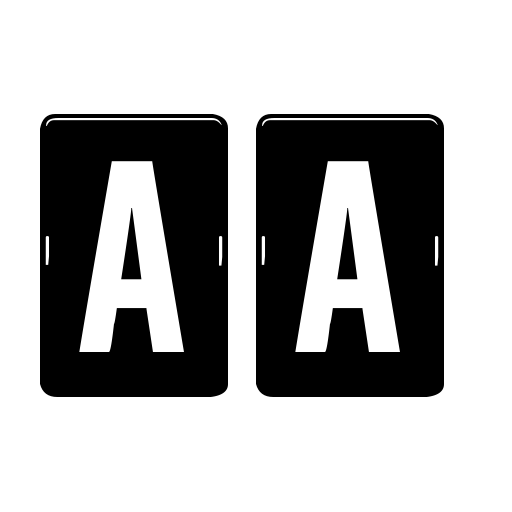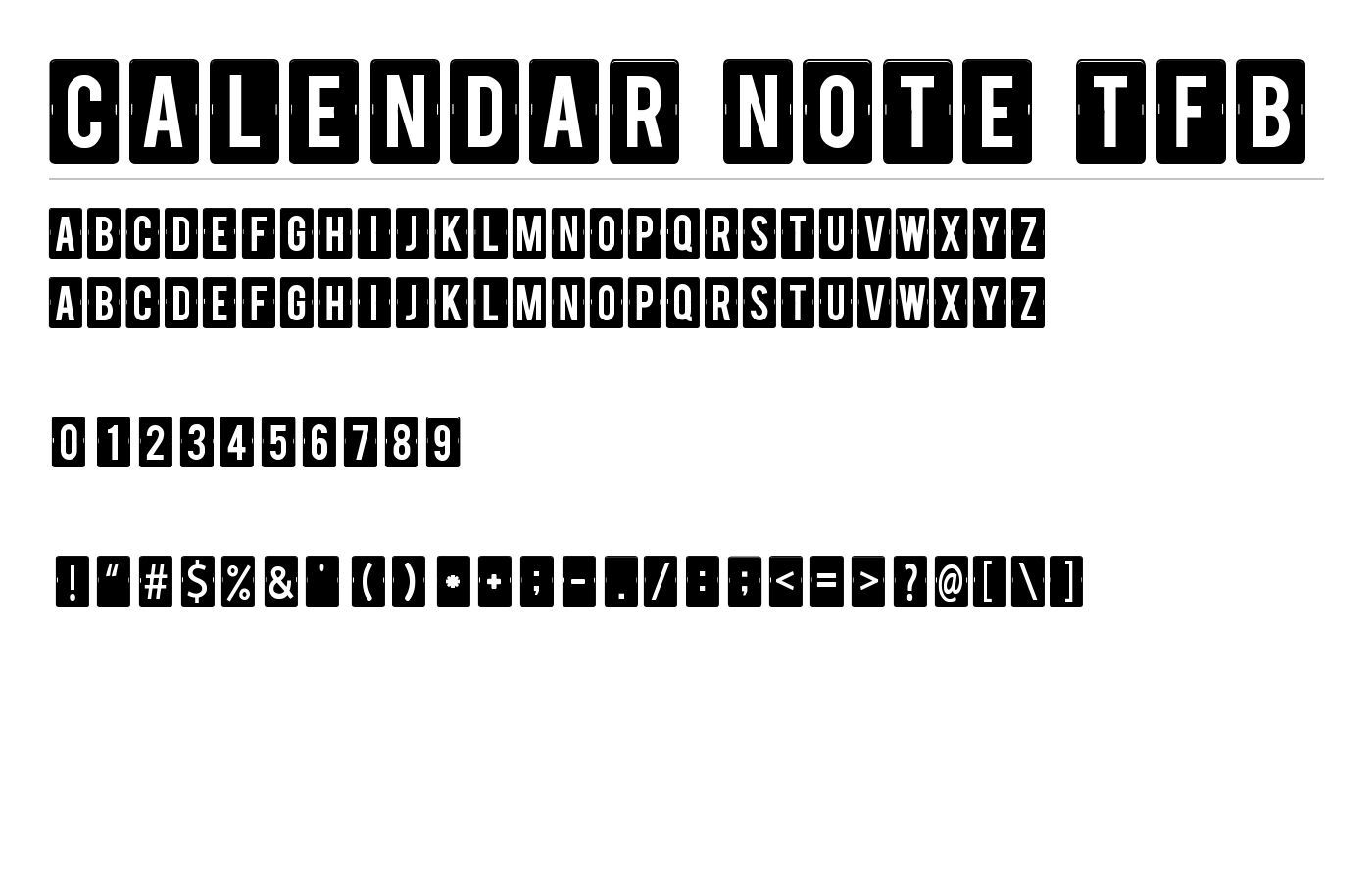
Calendar Note TFB is a bold, condensed sans serif font characterized by its strong, blocky letterforms set within solid black rectangular backgrounds, creating a striking stencil-like appearance. With uniform stroke widths and all-capital letters, it conveys a modern, utilitarian vibe ideal for attention-grabbing headlines, posters, or logos that require a clear, impactful message with a touch of industrial or vintage calendar aesthetics. This font works best in display settings where readability and bold presence are key.
About calendar note tfb Font
| Font family | calendar note tfb Font |
| Designer | kaiserzharkhan |